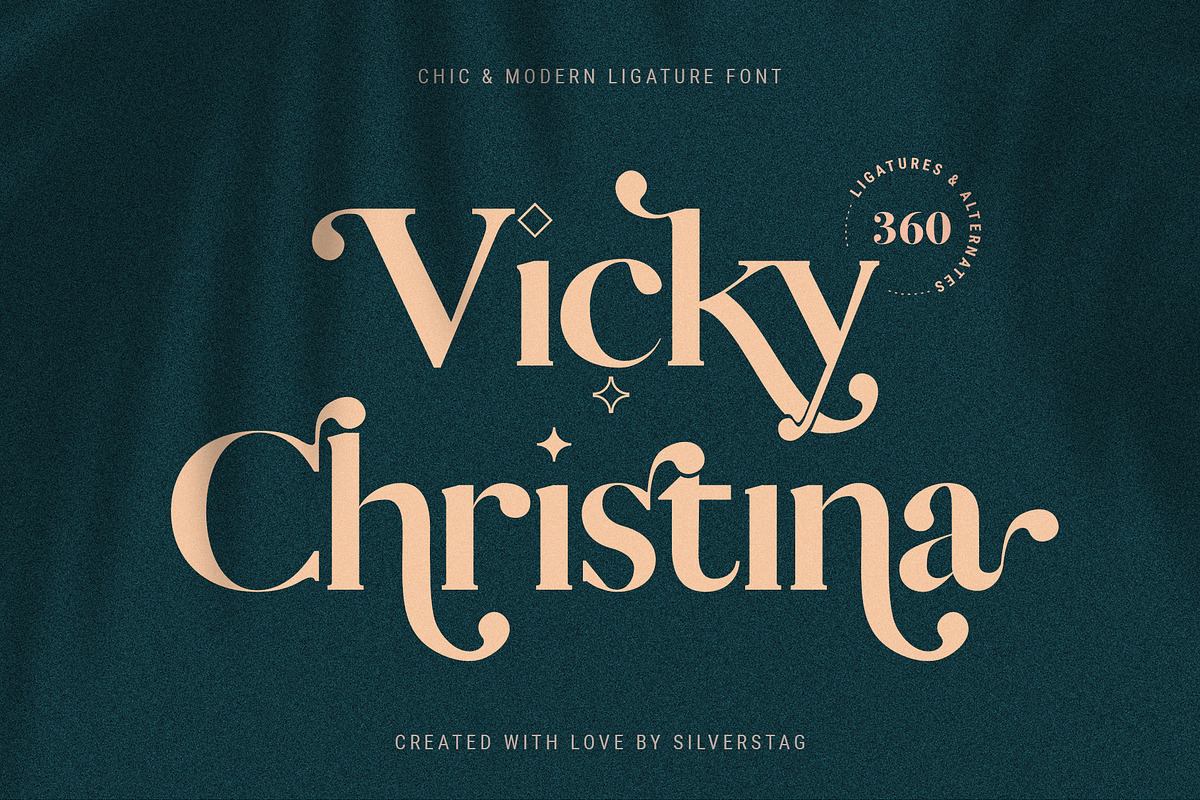
Vicky Christina Ligature Serif Font Free Download
Vicky Christina Ligature Serif Font Free Download is a chic and sophisticated typeface that blends classic serif elegance with modern ligature flair. Designed for fashion-forward branding, luxurious packaging, wedding invitations, and editorial layouts, this font brings a touch of class and creativity to every letter.
With its smooth curves, high contrast lines, and beautiful ligatures, Vicky Christina adds a refined yet artistic feel to your typography. It's perfect for designers who want to create a premium aesthetic without sacrificing readability or charm.